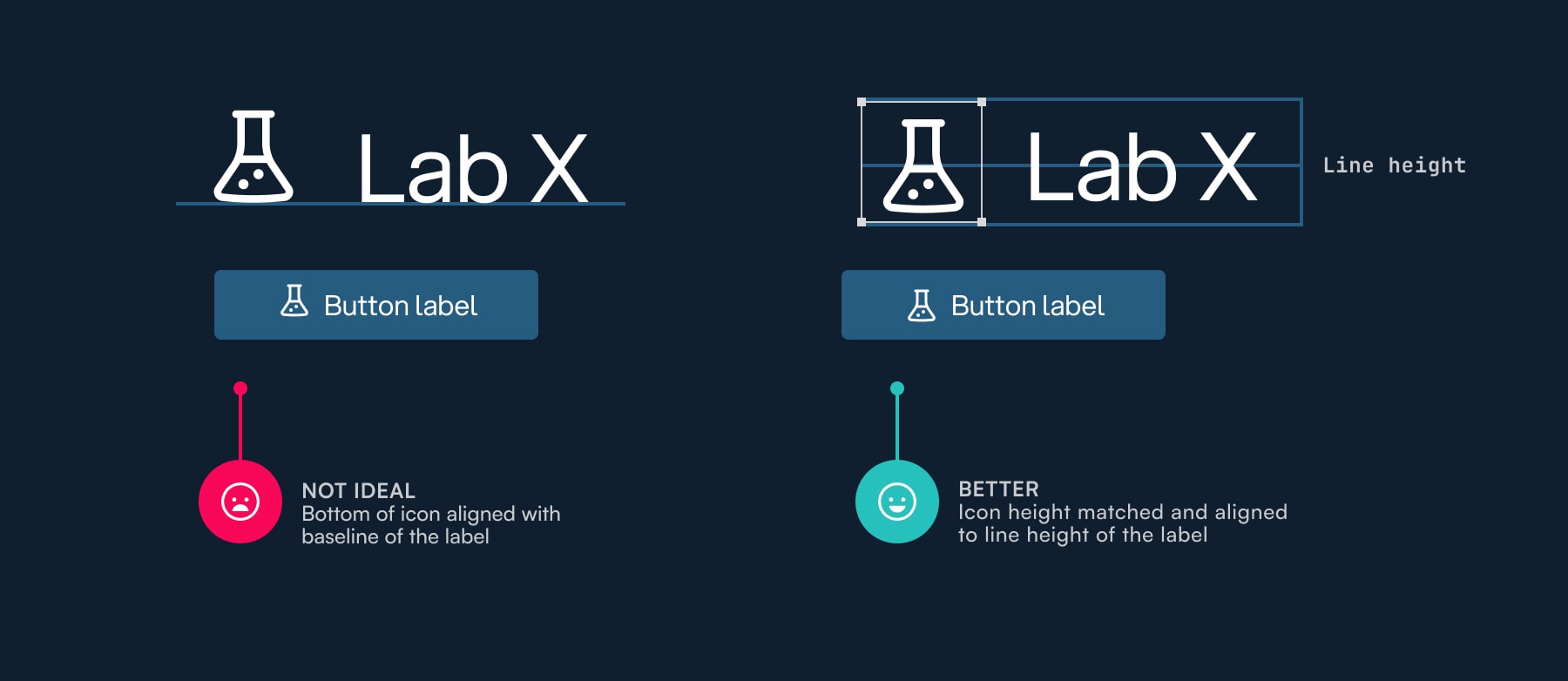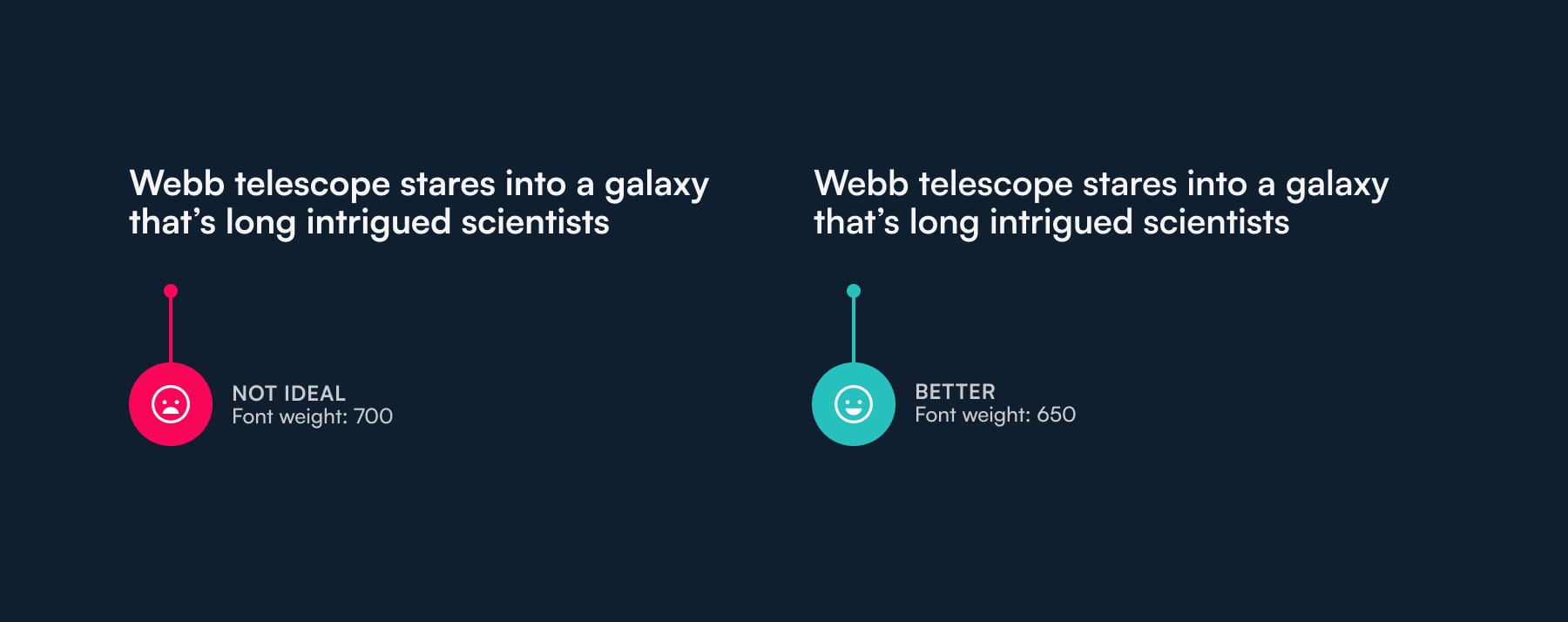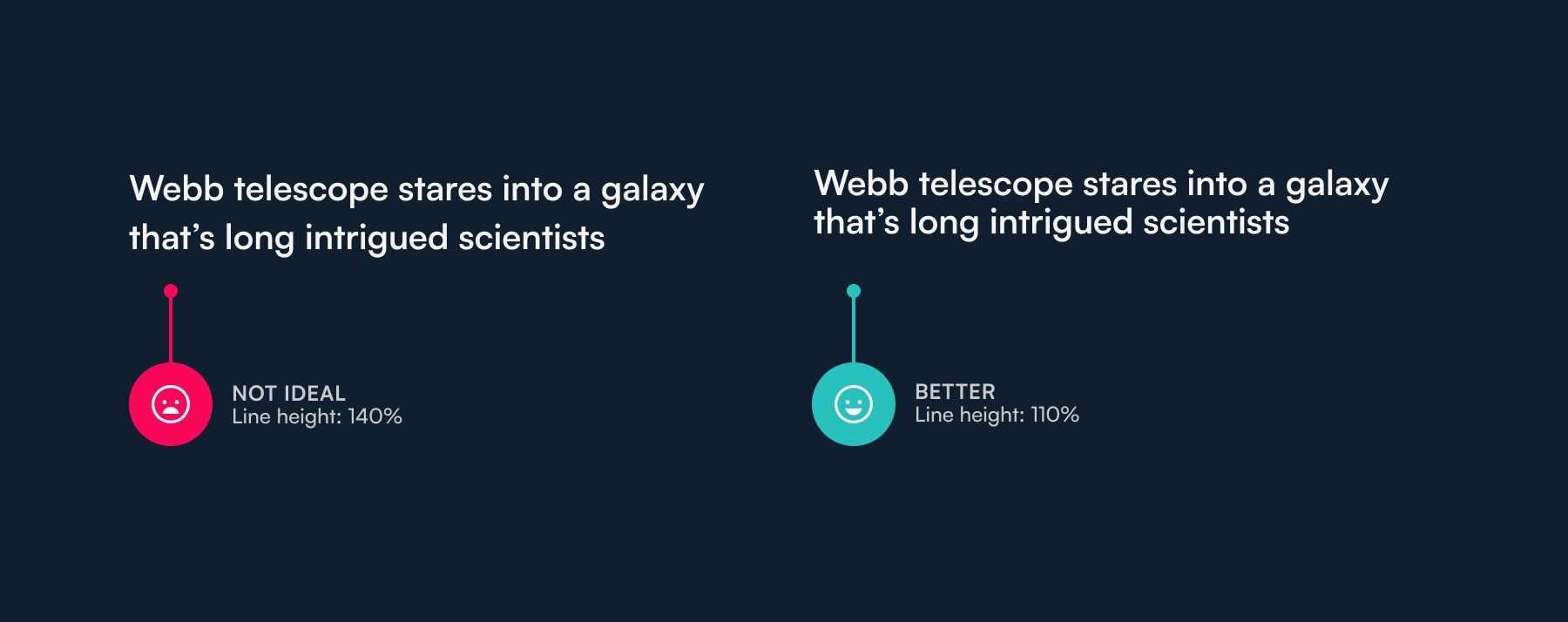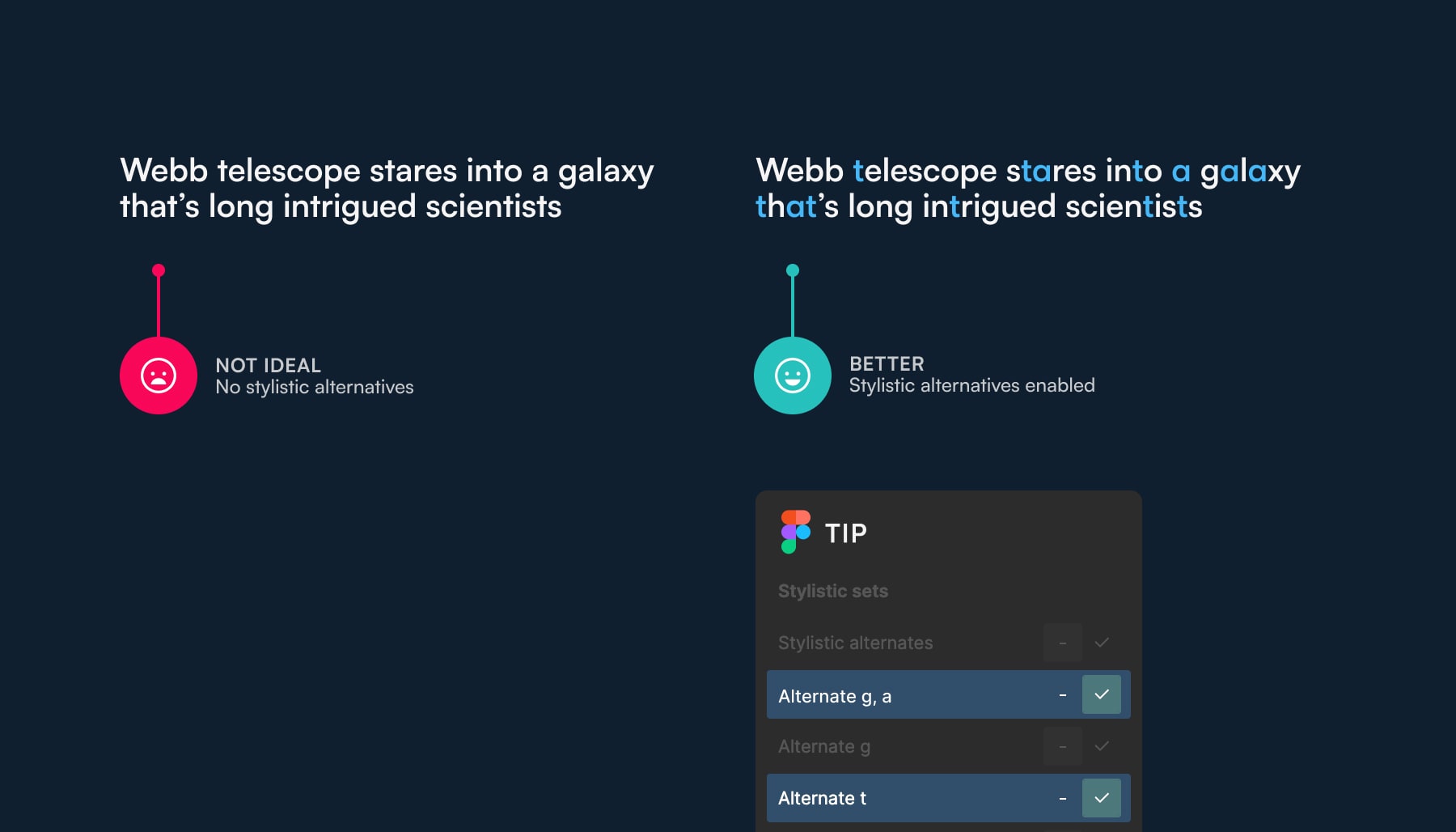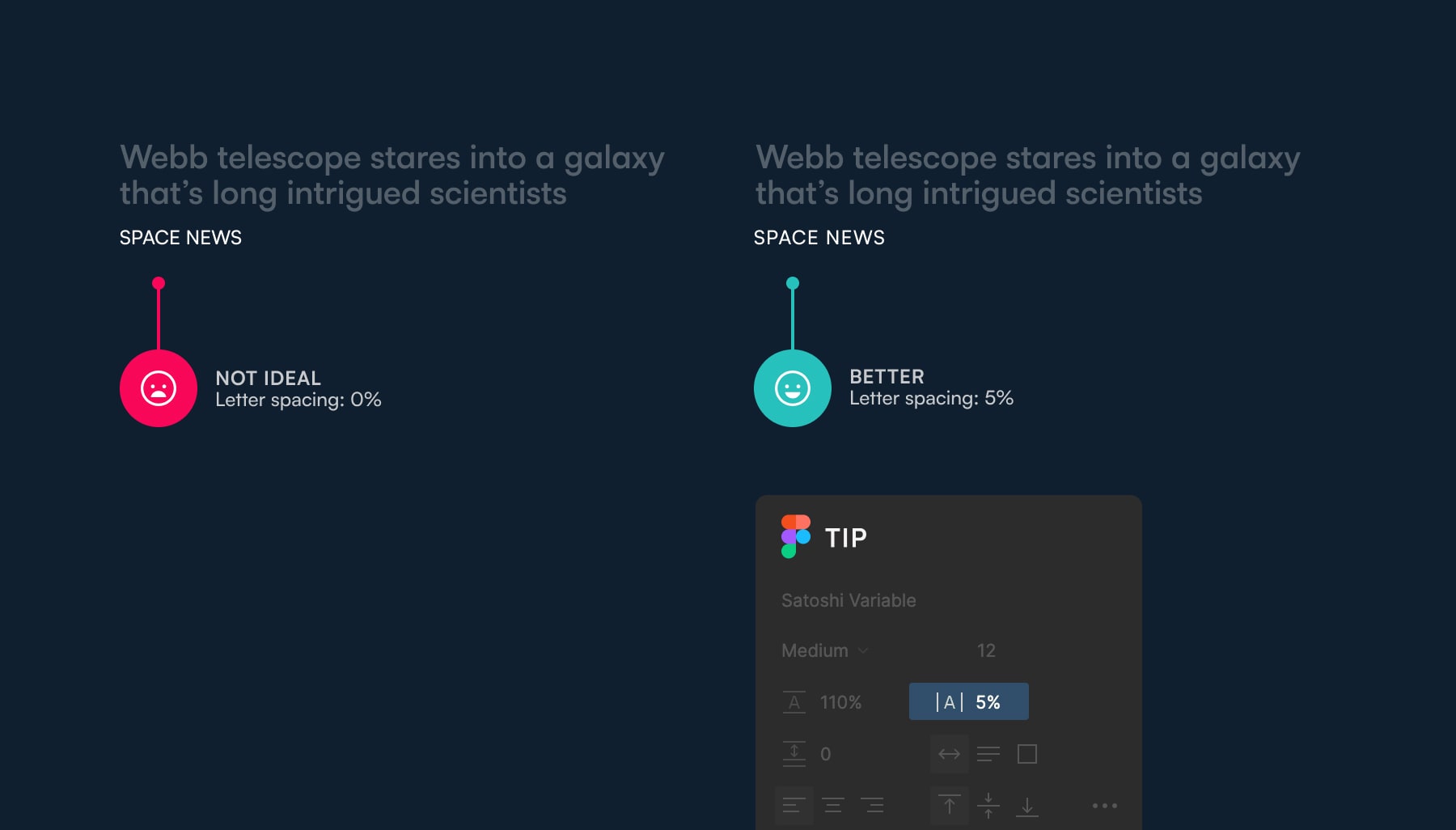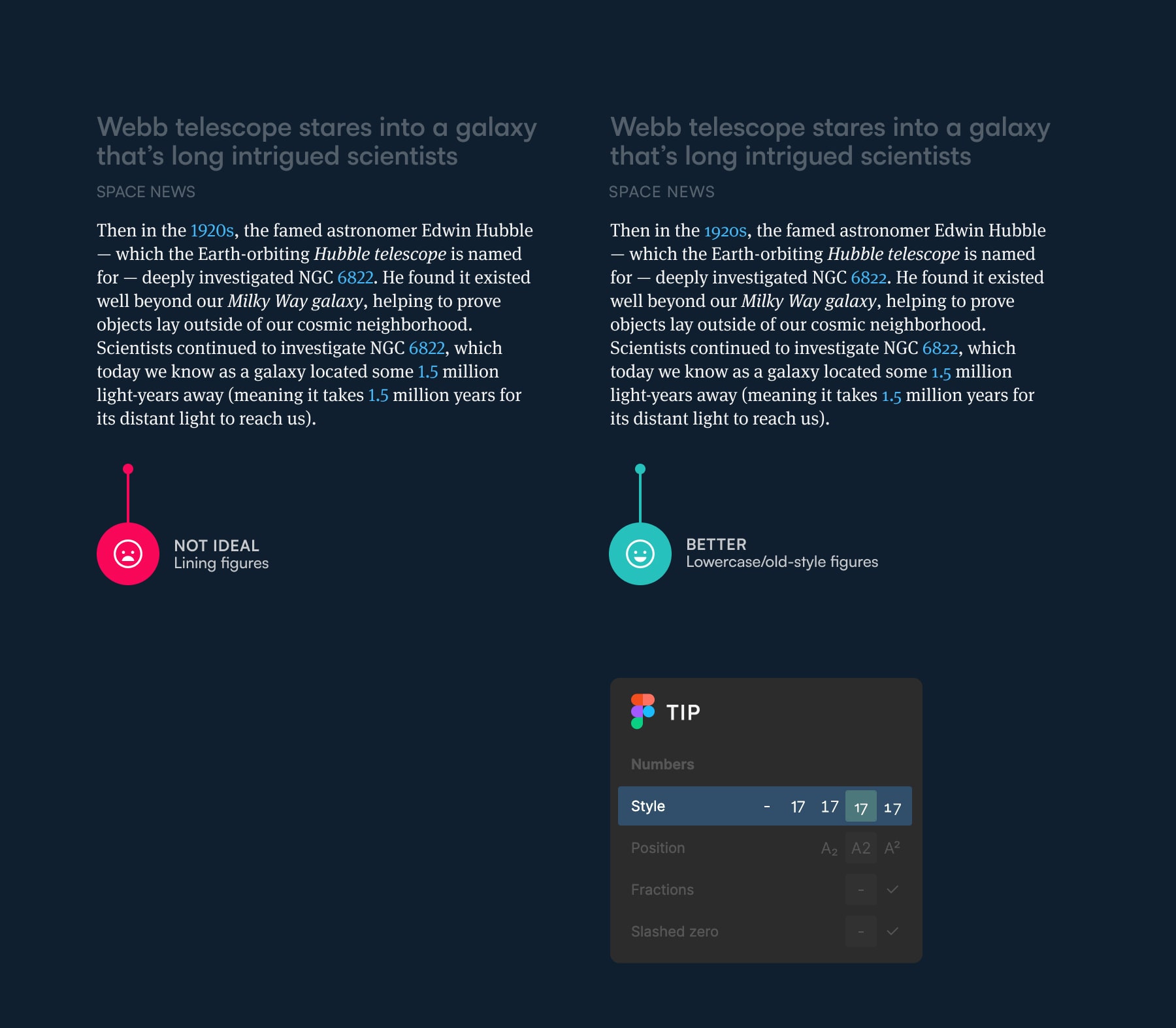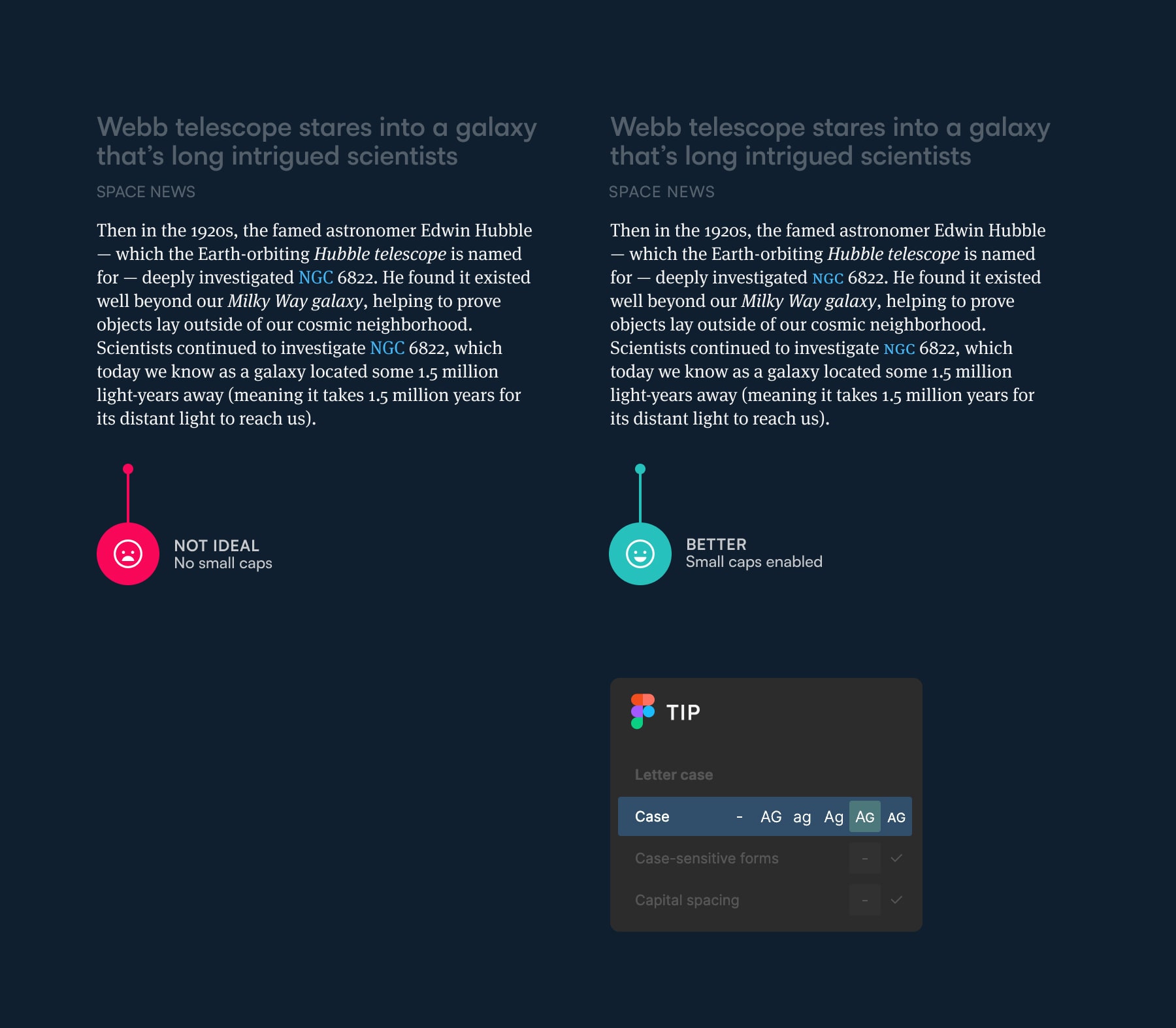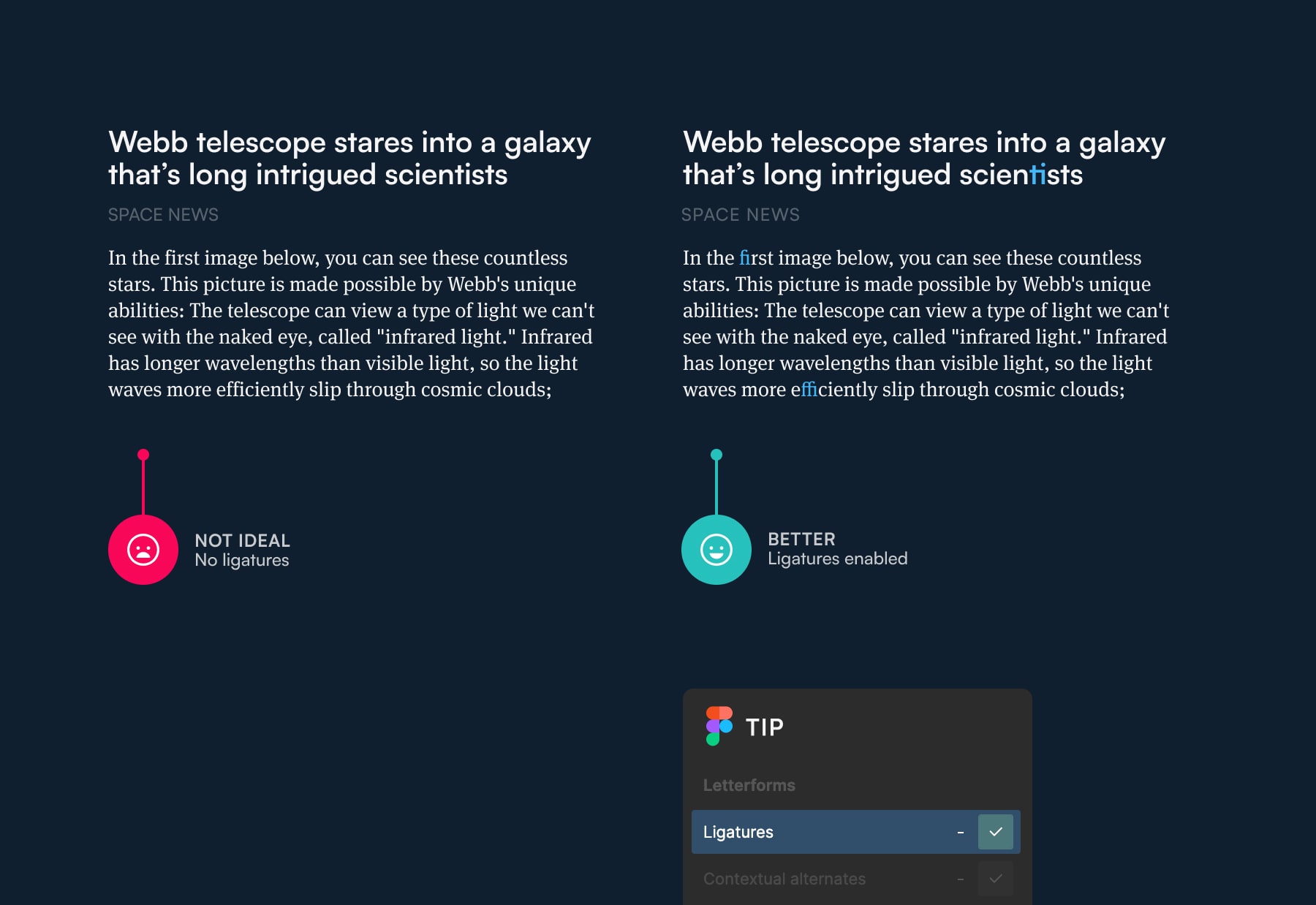
Typography is so much more than picking a font and deciding what sizes to use for headings and body text. It could be regarded as its own branch of science. And it’s not just science either, it’s a mix between science and art.
But I don’t want to get into that in this blog post. Yes, it takes a lot of time and effort to craft beautiful and original typography but what if you don’t have the time? What if you want to quickly improve the typography on your website in just a matter of minutes?
Today I want to show you can make your typography remarkable with 8 micro tips in less than 8 minutes. Let’s go!
1. How lightening your font weights on a dark background can improve aesthetics and readability
Two things became popular in the design industry lately — dark modes and variable fonts. But most websites make this mistake when they add a dark mode. They keep the font weights intact. If a heading is set in bold on light mode, it’ll have the same weight when the user switches to dark mode.
This is a problem because light text on a dark background looks heavier. It looks unpolished and can even impact the readability of the text (left example in Fig 1). My recommendation is to consider using a variable font and adjusting the font weight in dark mode. Reduce it by 50. So if the font is set to bold in light mode (bold equals 700), reduce it to 650 (right example in Fig 1). Now your text looks refined and it’s easier on the eye, which means it’s easier to read.
<strong>Fig 1</strong>: A comparison of weight 700 versus 650 on a dark background.
Fig 1: A comparison of weight 700 versus 650 on a dark background.
2. Why reducing the line height of headings drastically improves their appearance
Here’s the thing with headings — they’re generally short. Usually one line of text, sometimes two. In extreme cases, they break into three lines. But that’s it. A line height of around 140% is recommended for body text, so full paragraphs. When the same is applied to headings it looks like the lines are drifting apart. Like they don’t belong together (left example in Fig 2). Reduce the line height of headings to somewhere between 110 and 120%. The headings will look more compact, cohesive and polished (right example in Fig 2).
<strong>Fig 2</strong>: Large line height in a heading versus a smaller one
Fig 2: Large line height in a heading versus a smaller one
3. How using open-type features can make your fonts look more original
Open-type features are becoming increasingly popular. This is great because it also means that more and more fonts support them. One of my favourites is stylistic alternates. The type designer who designed the font is giving you the option to use alternative symbols. Most commonly these are alternative designs for letters “a” “g” and “t.”
Don’t use the font as it is out-of-the-box. Check if there are open-type settings that you can use to make it look more original. Below, I’m using Satoshi out-of-the-box on the left (Fig 3) and with stylistic alternates on the right.
<strong>Fig 3</strong>: Stylistic alternates versus default character designs.
Fig 3: Stylistic alternates versus default character designs.
4. Don’t be afraid to use uppercase, but when you do letter-space it
Everyone already knows that words written in uppercase are hard to read. So it seems everyone just stopped using it completely. It’s ok to use uppercase in small amounts. It helps separate different parts of content or UI. It’s a cool way to emphasise something without using bold or italics.
I use uppercase for showing the category of the article below (Fig 4). Notice the difference between the left example which isn’t letter-spaced and the right one which is. Letter-spacing uppercase words helps improve readability and it also makes your designs look more refined. I recommend letter spacing up to 5%. Always, ALWAYS letter-space uppercase.
<strong>Fig 4</strong>: Letter-spacing uppercase words improves their readability.
Fig 4: Letter-spacing uppercase words improves their readability.
5. Use the subtlety of old-style figures to make your text free of distractions and easier to read
The most experienced designers will refuse to use a font for body text if a character stands out too much. I’ll give you an example — I once decided not to use a font because the lowercase letter “g” had an unusual, weird descender (the bottom part of the letter). It stood out too much, you just couldn’t help but notice it — it was a distraction. You don’t want that. You want your readers to be completely consumed by the content.
The same applies to numbers in your text. When they’re set in lining figures (usually the default style in fonts) they stand out too much (left example in Fig 5). As the readers progress through the lines of text, they can’t help but notice these numbers before they get to them. They get distracted and it becomes harder to read.
Old-style figures are the lowercase alternative. They go along well with lowercase text and don’t stand out. Very few websites and apps go as far as to take care of this typographic detail. So if you do, you’re website will be typographically refined and stand out in its subtlety. The subtlety that only type geeks will notice but your readers will unknowingly appreciate.